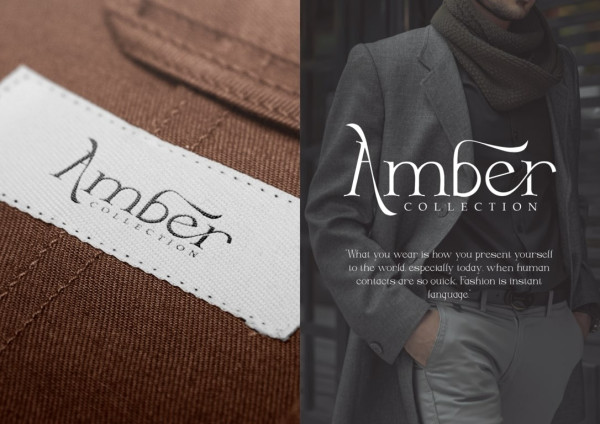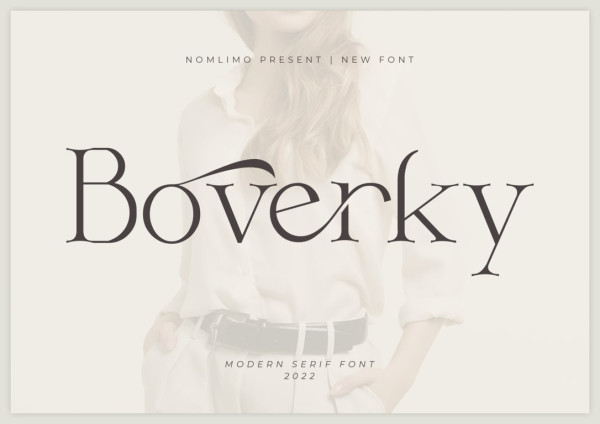
Boverky Font
Boverky Font, a sleek sans-serif font that effortlessly combines trendy, elegant, and modern elements, making it an ideal choice for your contemporary projects. With its luxurious and artistic style, Boverky adds a touch of sophistication to any branding endeavor. This font offers a wide range of alternates and ligatures, empowering you to unleash your creativity and craft unique and original logos or websites. Embrace the versatility of Boverky and elevate your designs to new levels of elegance and originality. Let Boverky be the stylish companion that takes your projects to new heights of sophistication.